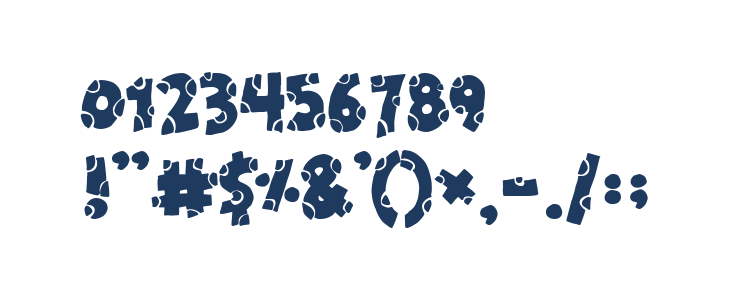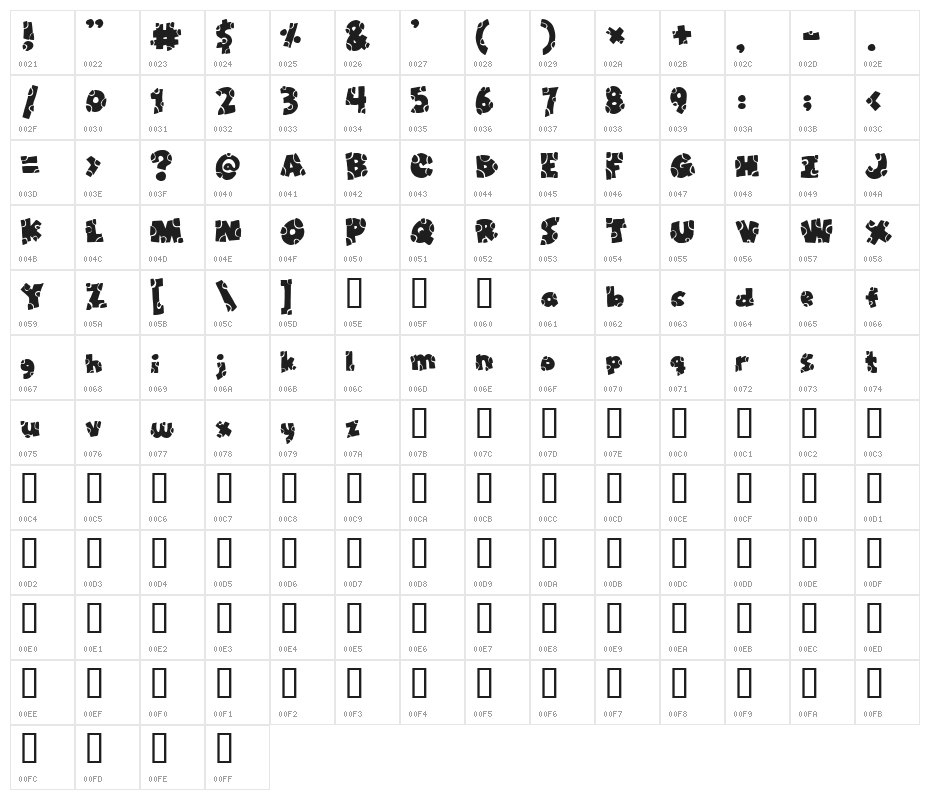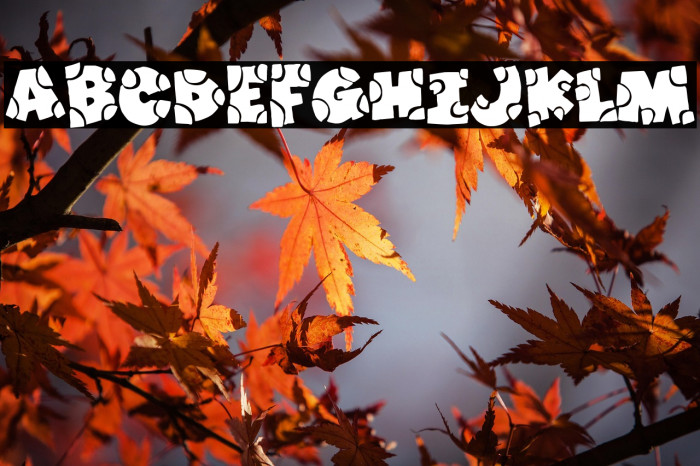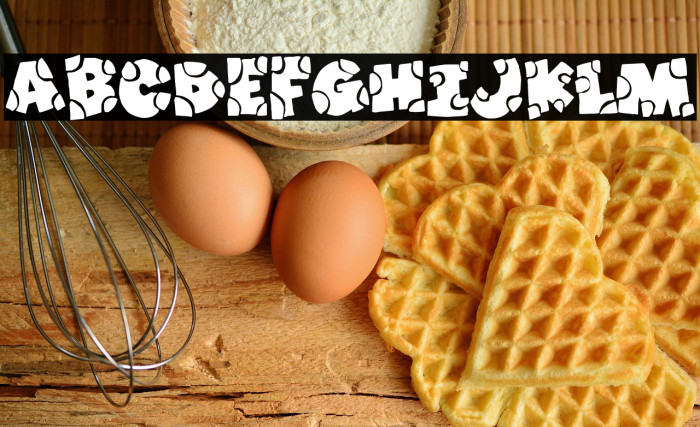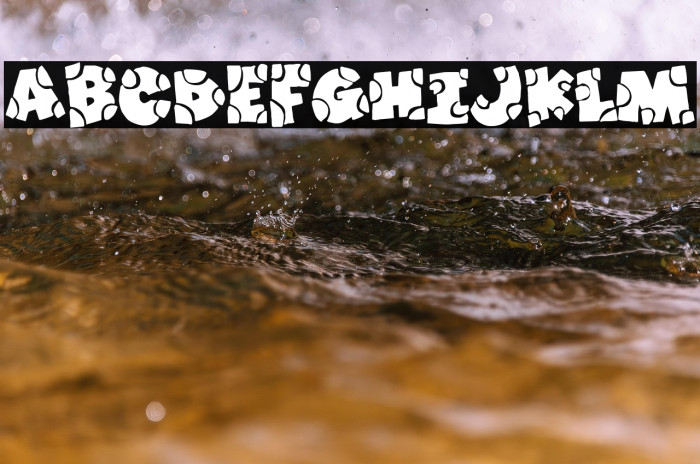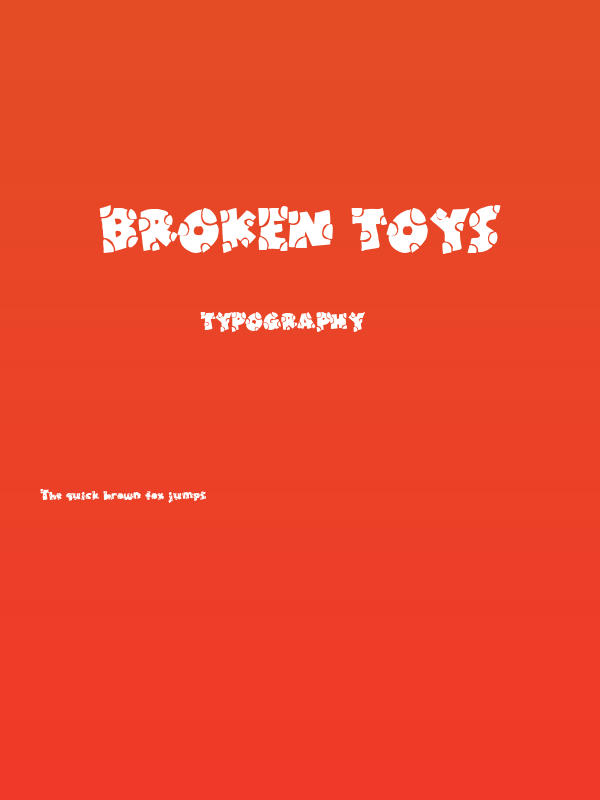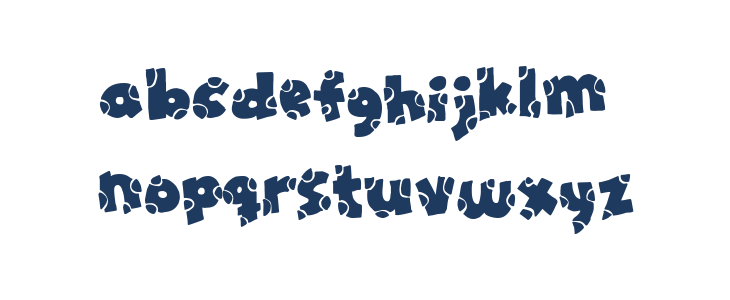
Broken Toys Font
Broken Toys Description
This playful and whimsical font features a unique design that resembles broken or scattered pieces, giving it a distinctive and eye-catching appearance. Each character is composed of irregular shapes that fit together like a jigsaw puzzle, creating a sense of movement and energy. The bold and chunky letters have a strong presence, making them ideal for grabbing attention. The font maintains a consistent style across uppercase, lowercase, numbers, and special characters, ensuring versatility in various design contexts. Its decorative nature makes it suitable for projects that require a fun and informal touch.
| Proposed Projects | Ideal for children's book covers, playful posters, party invitations, and creative branding projects. |